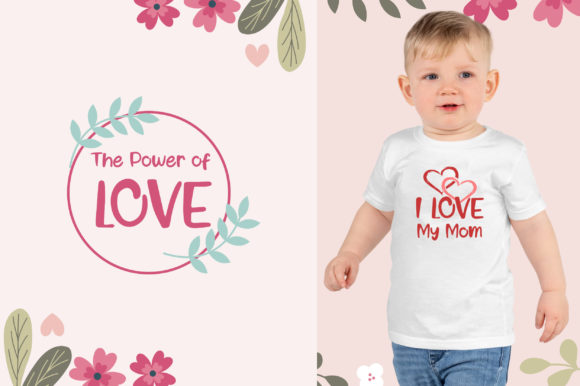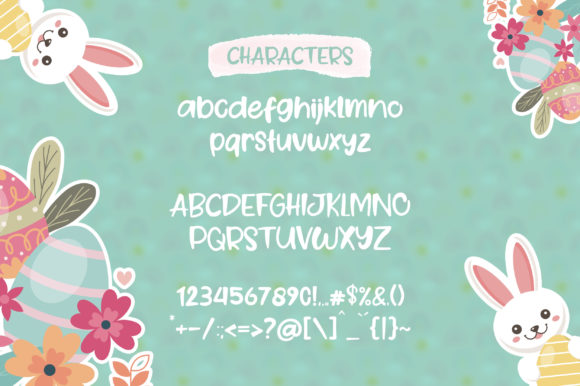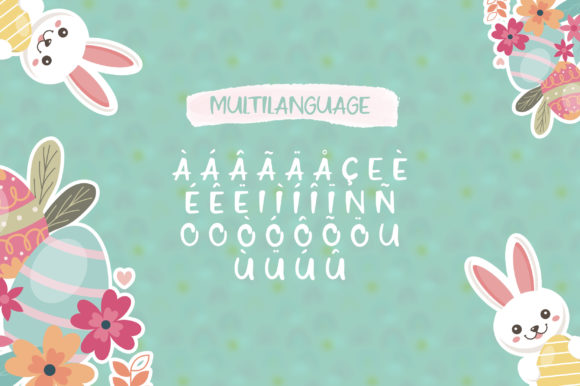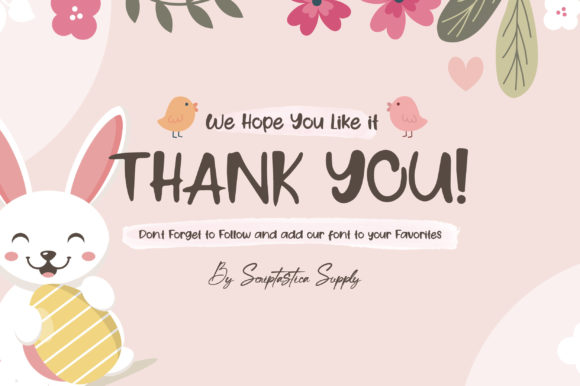
Easter Boho Wedding Font: Elevate Your Designs with a Touch of Whimsy
Are you on the hunt for a font that embodies the free-spirited and eclectic vibe of Easter and bohemian-inspired weddings? Look no further than the Easter Boho Wedding Font! This stunning display font is perfect for designers and crafters seeking to add a dash of whimsy and romance to their creations.
What Makes Easter Boho Wedding Font So Special?
Easter Boho Wedding Font is a cool and neat display font that is suitable for a wide range of design projects, including logos, branding, greeting cards, posters, and any other creative endeavor that you pour your heart and soul into. Its unique blend of bohemian charm and Easter-inspired flair makes it an excellent choice for:
- Easter-themed designs, such as egg decorations, bunny illustrations, and spring-inspired art
- Boho-chic wedding designs, including invitations, save-the-dates, and ceremony decor
- Branding and logos for businesses that embody a free-spirited and eclectic vibe
- Greeting cards and stationery for special occasions, like birthdays, anniversaries, and holidays
Key Features of Easter Boho Wedding Font
This gorgeous font boasts several key features that make it a standout choice for designers and crafters:
- Unique and eye-catching design: Easter Boho Wedding Font features an distinctive, hand-crafted design that is sure to turn heads
- High-quality and versatile: This font is perfect for a wide range of design projects, from digital to print
Tips for Using Easter Boho Wedding Font in Your Designs
To get the most out of Easter Boho Wedding Font, try these expert tips:
- Pair with complementary fonts: Combine Easter Boho Wedding Font with other fonts that share a similar bohemian or Easter-inspired vibe to create a cohesive look
- Experiment with colors: Take advantage of the font’s versatility by pairing it with a range of colors, from soft pastels to rich jewel tones
- Add decorative elements: Enhance your designs with Easter-themed decorations, such as eggs, bunnies, or floral patterns, to create a cohesive and festive look
Why Designers and Crafters Love Easter Boho Wedding Font
Easter Boho Wedding Font has quickly become a favorite among designers and crafters, and for good reason:
- Time-saving: With Easter Boho Wedding Font, you can create stunning designs in a fraction of the time it would take to design from scratch
- Unique and exclusive: This font offers a fresh and exclusive look that will set your designs apart from the crowd
- High-quality and professional: Easter Boho Wedding Font is designed to meet the highest standards of quality and professionalism